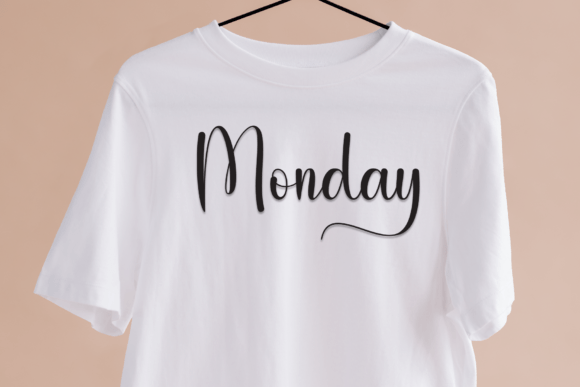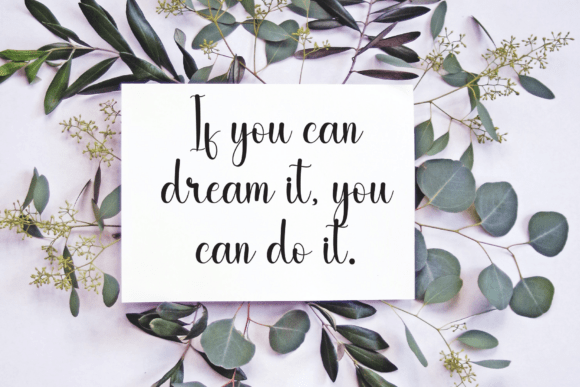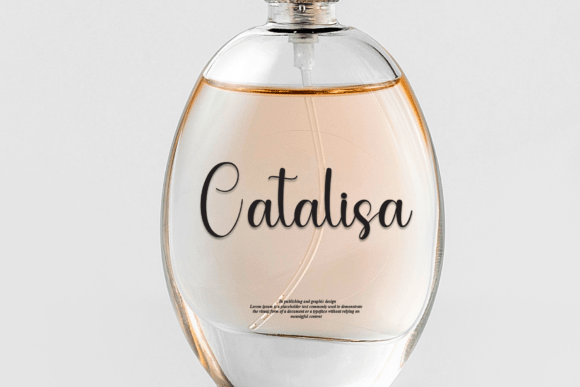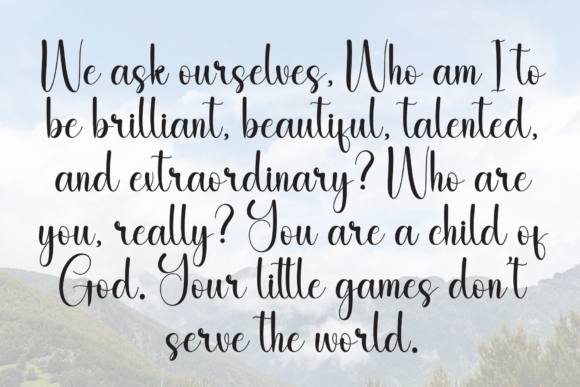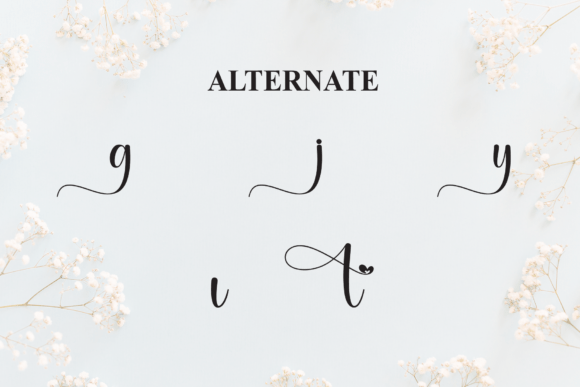
Introducing Greating Font: The Epitome of Modern Calligraphic Elegance
In the realm of typography, few fonts manage to strike a balance between traditional sophistication and contemporary flair. Greating font, however, stands out as a masterclass in modern calligraphic style, seamlessly blending the elegance of the past with the sensibilities of the present. This exquisite typeface is characterized by its smooth, flowing lines and a charming heart-shaped dot on the “i,” which adds a subtle yet romantic touch to its professional silhouette.
The Distinctive Features of Greating Font
One of the defining features of Greating font is its long, elegant tails and loops. These design elements give the text a sense of movement and grace, making it an ideal choice for high-end stationery, wedding branding, and sophisticated logo designs. The font’s clean, sharp lines ensure that it remains legible even when used in intricate layouts, making it a versatile choice for designers and crafters.
Perfect for Conveying Warmth and Luxury
Greating font is specifically designed for those instances where you want to convey a message of warmth and luxury. Whether you’re creating greeting cards, “thank you” notes, or branding for a floral boutique, this typeface provides the perfect blend of personality and polish. Its elegant appearance instantly elevates the design, imbuing it with a sense of high-end quality that is sure to leave a lasting impression.
Pairing Greating Font with Design Elements
One of the joys of working with Greating font is its ability to pair well with a variety of design elements. It works exquisitely with minimalist botanical illustrations, adding a touch of sophistication and elegance to any design. Additionally, it complements soft pastel color palettes beautifully, creating a harmonious and visually appealing combination that is perfect for wedding designs, luxury lifestyle brands, and more.
Ideal for Wedding and Luxury Brand Designs
For designers and crafters working on wedding-related projects or luxury lifestyle brands, Greating font is an invaluable asset. Its unique blend of traditional calligraphy and modern design makes it the perfect choice for creating bespoke wedding stationery, elegant logo designs, and sophisticated branding materials. The font’s romantic undertones and professional appearance make it an excellent tool for conveying the elegance and refinement that these projects demand.
Tips for Using Greating Font
To make the most of Greating font, consider the following tips:
- Use it for headlines or key phrases to add a touch of elegance to your designs.
- Pair it with simpler fonts for body text to create a balanced and harmonious design.
- Experiment with different colors, especially soft pastels, to enhance the romantic feel of the font.
- Consider adding minimalist illustrations or floral elements to complement the font’s elegant lines.
Greating font is a stunning example of modern calligraphic design, offering a perfect blend of elegance, sophistication, and personality. Its smooth lines, charming details, and versatile nature make it an ideal choice for designers and crafters looking to add a touch of luxury and warmth to their projects. Whether you’re designing for a wedding, a luxury brand, or simply looking for a beautiful font for your crafting projects, Greating font is sure to exceed your expectations.
Incorporating Greating font into your design repertoire can significantly enhance the aesthetic appeal of your projects, providing a unique and sophisticated look that sets you apart from the crowd. With its wide range of applications and timeless elegance, Greating font is poised to become a favorite among designers and crafters alike.